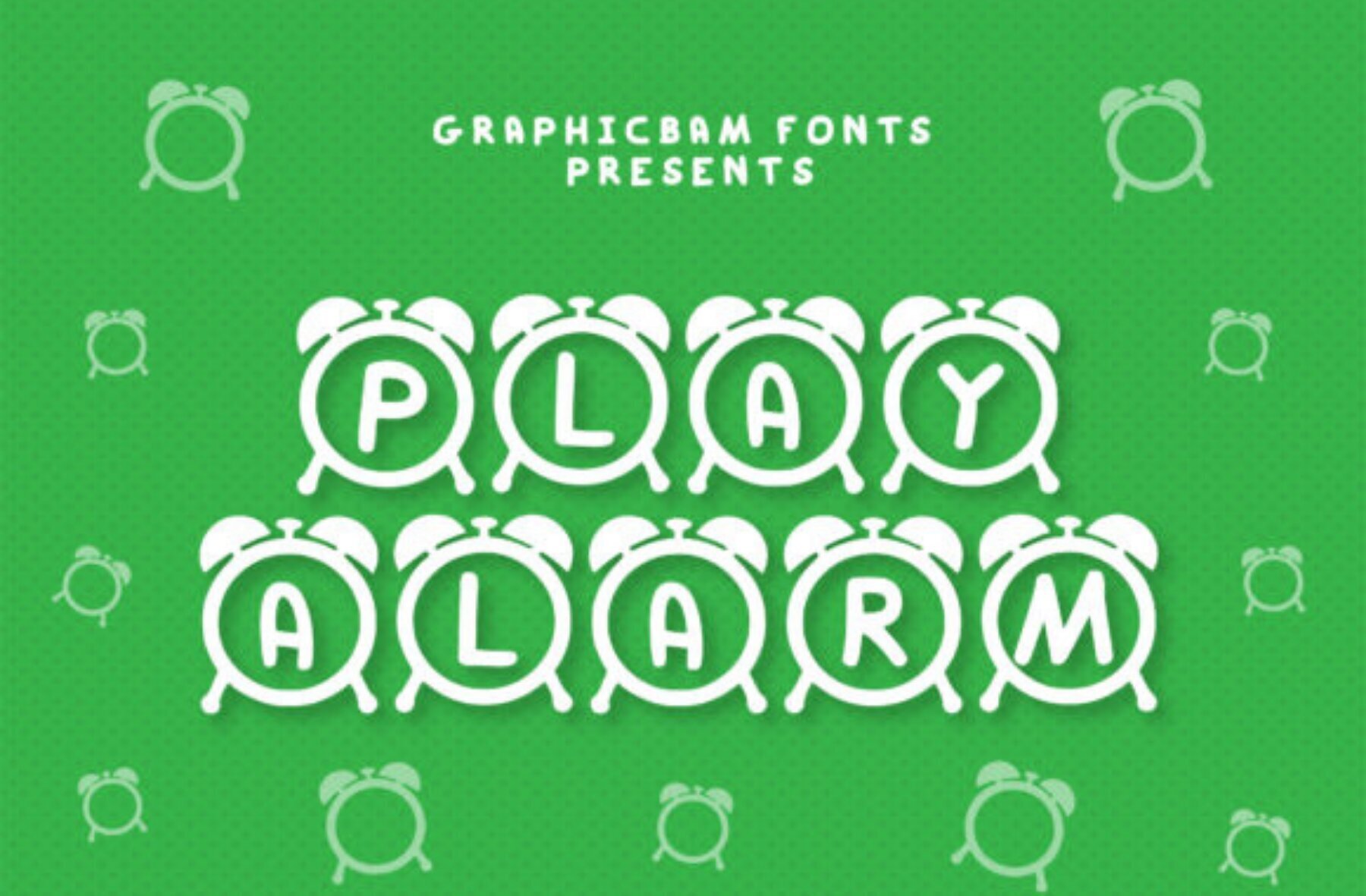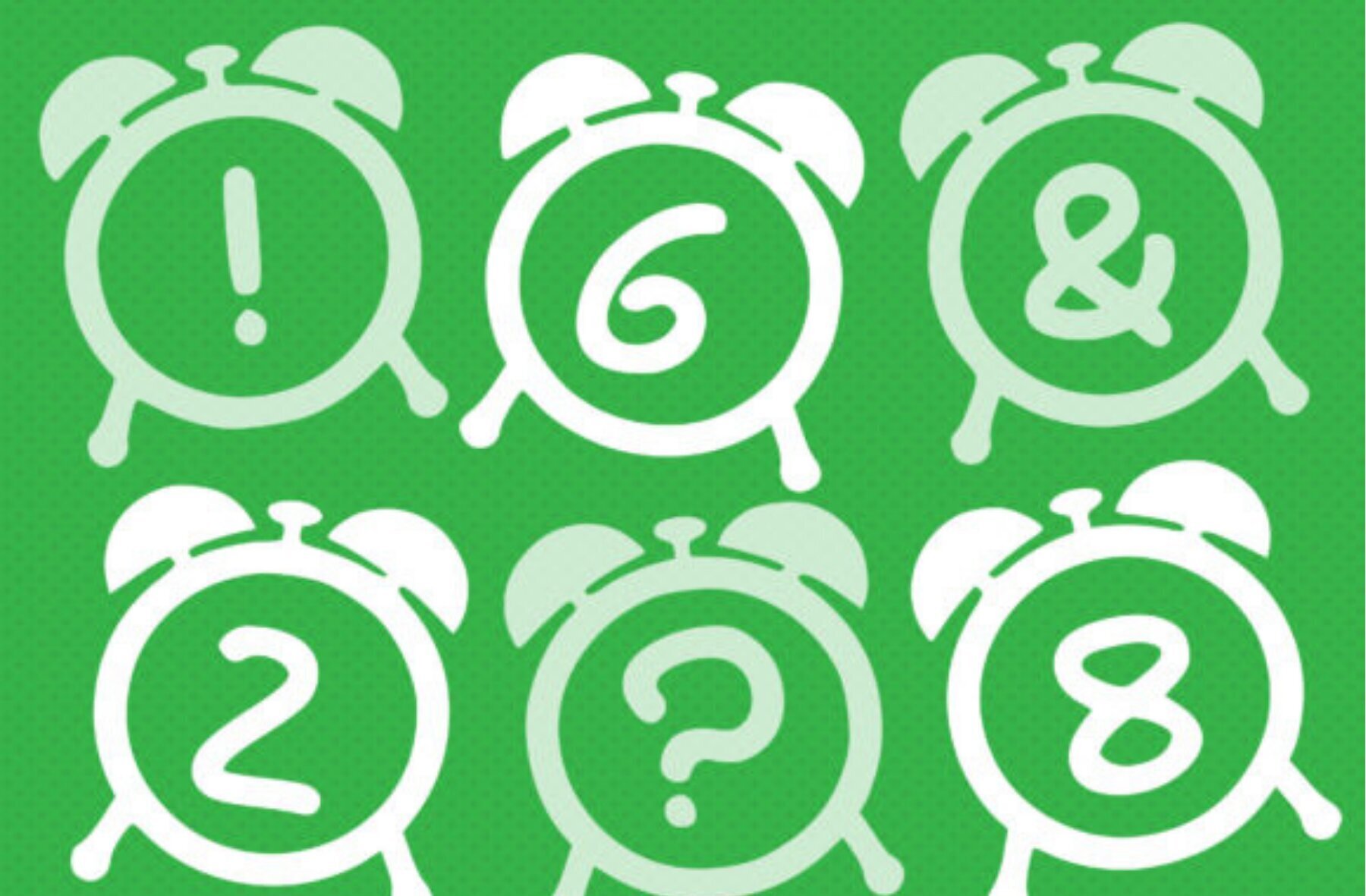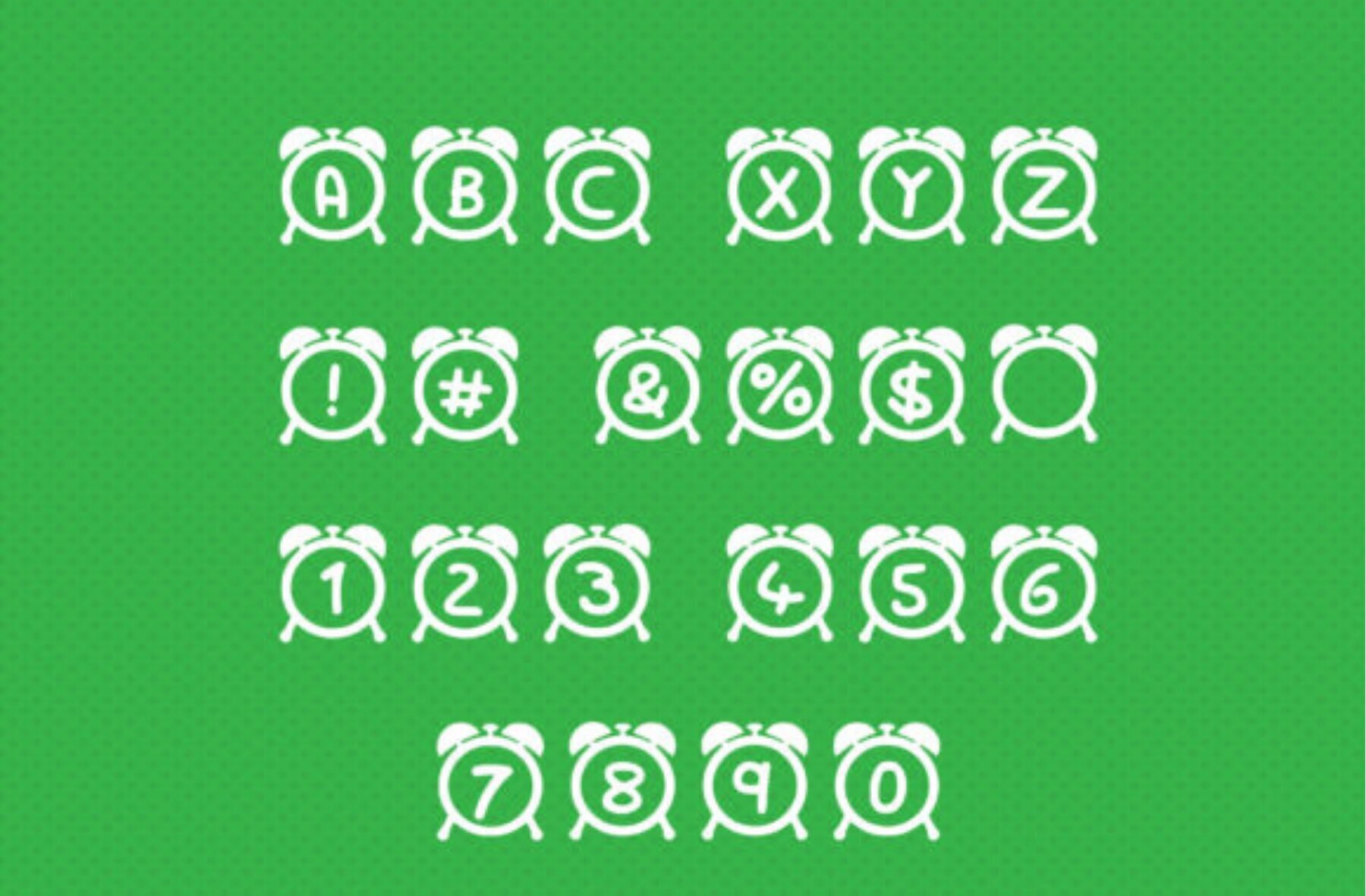
Play Alarm Font
Play Alarm Regular
Play Alarm transforms your designs with its unique decorative theme. Each character is creatively crafted to feature a clock, adding an irresistible charm to any project. Whether you're designing a poster, crafting a logo, or developing a catchy flyer, this font serves as a versatile asset to your library.Play Alarm Decorative Font